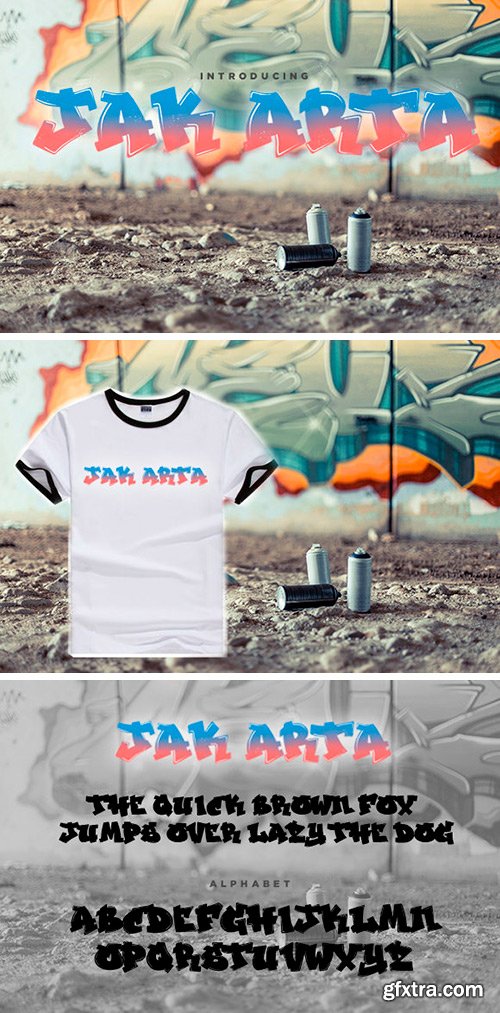
jakarta arta font
Jak Arta Font
The Jak Arta is a striking graffiti font. It has a graffiti style which makes it perfect for designs which need a street-art look.